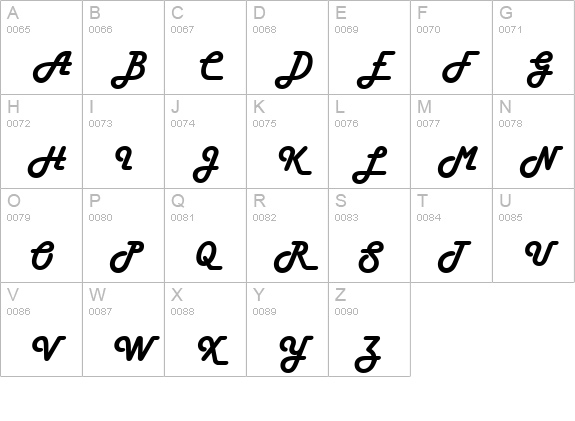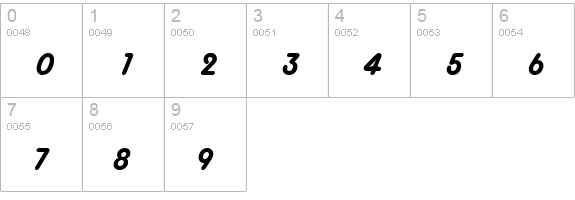
H652-Script-Regular is the standard, neutral variant in the H652 typeface family \xE2\x80\x94 well suited to general body text, paragraphs, and standard typographic work.
H652-Script-Regular is a stunning and elegant font that embodies the perfect balance between modernity and classic script style. Its flowing lines and graceful curves make it a versatile choice for a wide range of design projects, from invitations to branding. This font exudes sophistication and charm, adding a touch of refinement to any creative endeavor. What makes H652-Script-Regular even more appealing is that it is available for free download at FontsMarket.com. This means that you can easily access this beautiful font and use it in your projects without any cost. Whether you are a seasoned designer or just starting out, H652-Script-Regular is a valuable addition to your font collection. Don't miss out on the opportunity to elevate your designs with this exquisite and freely available font.